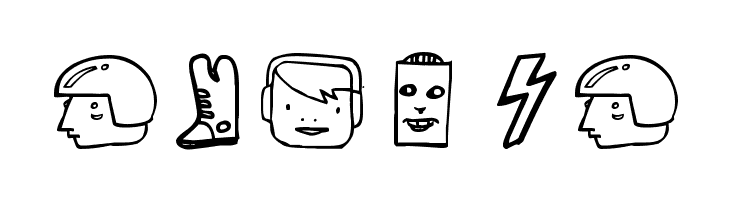
Ornate illustrated font with underwater sea life motifs.
A collection of rock-themed graphics and symbols, not a traditional font.
A collection of music-themed icons in a clean, modern line art style.
A decorative font with mask-like, abstract characters.
A playful collection of sports-themed icons in a cartoonish style.
Ornamental dingbat set with compass roses and fleur-de-lis motifs.
A bold, futuristic font with a 3D effect and geometric shapes.
A futuristic, space-themed font with bold, geometric characters.
من المفضلات مؤخرًا Sealife, Rock Star 2.0, Rock Star, Maskalin and Sporto. توازن هذه الخطوط بين الوضوح والشخصية وتناسب العلامات التقنية، وتصاميم التحرير، ومرئيات الشبكات الاجتماعية.